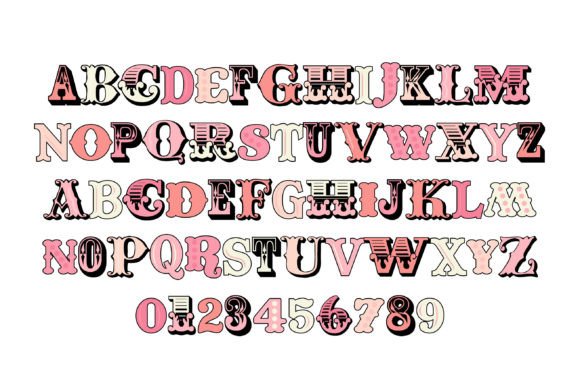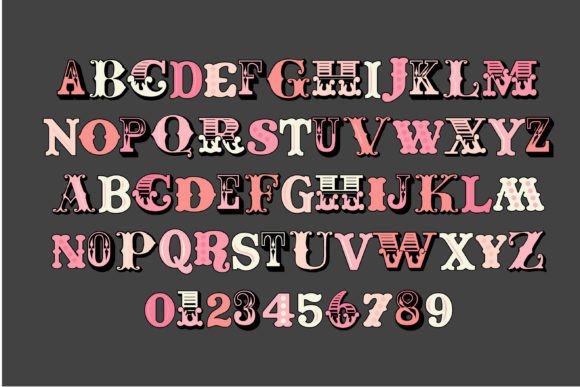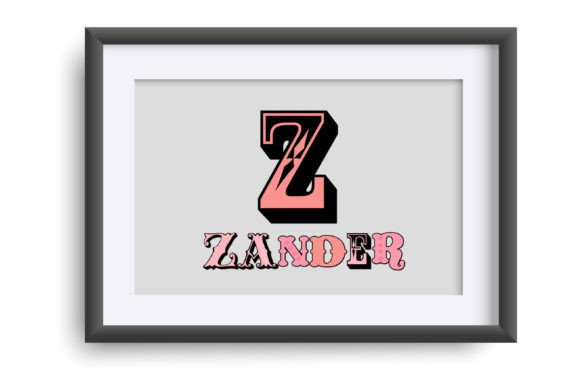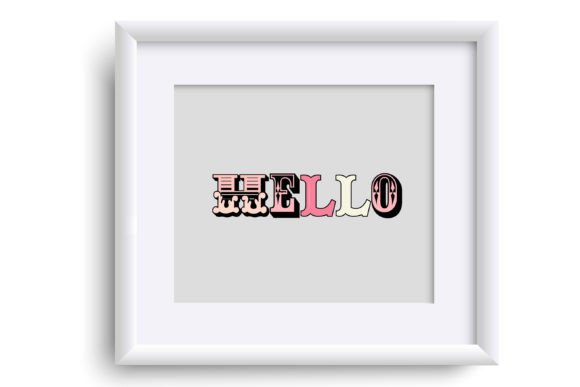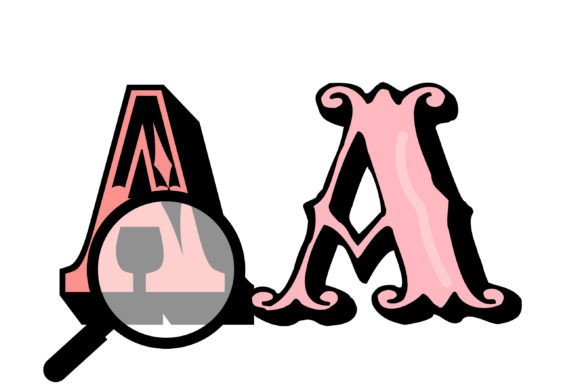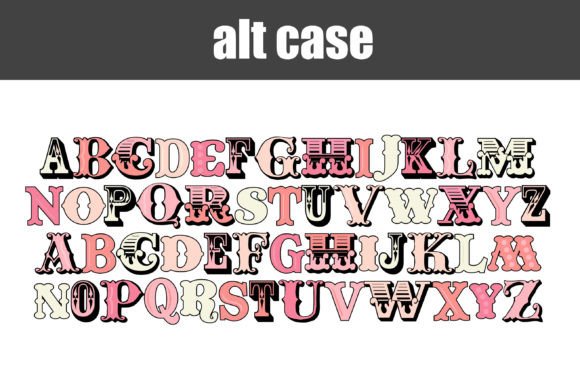
Introduction to Mishmash Mom Font Font
Fonts play a crucial role in design, and the Mishmash Mom Font font is a typeface that brings both character and versatility to any project. Whether you’re working on a branding project, a website, or a print design, the Mishmash Mom Font font offers a unique style that can elevate your work.
This full-color font features a mishmash of font styles all in a pink color palette.
There is a second version of each uppercase letter in a different color with a big swoosh available through Silhouetteβs glyph map If you are looking for a versatile, high-quality font that can be used for a variety of projects, then a full-color SVG font is the perfect choice for you.
Key Features of Mishmash Mom Font Font
Why Choose Mishmash Mom Font Font?
The Mishmash Mom Font font is more than just a typeface β it’s a design tool that helps you communicate your message with style and clarity. Its unique character set and versatile design make it suitable for a wide range of applications, from elegant invitations to bold headlines.
With its carefully crafted letterforms and balanced proportions, the Mishmash Mom Font font ensures readability and visual appeal across all mediums.
What makes Mishmash Mom Font font special?
The Mishmash Mom Font font stands out with its unique design, exceptional readability, and versatility across various design applications.